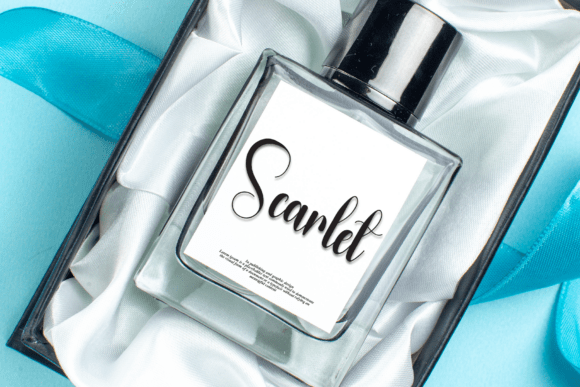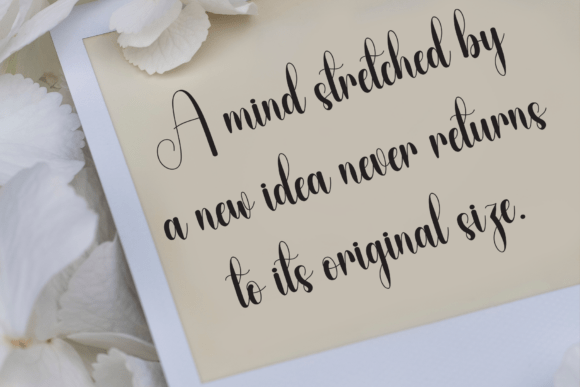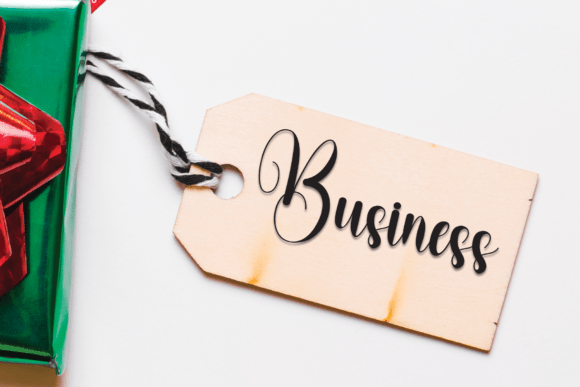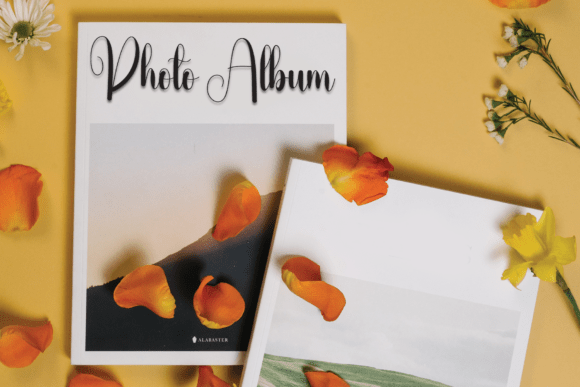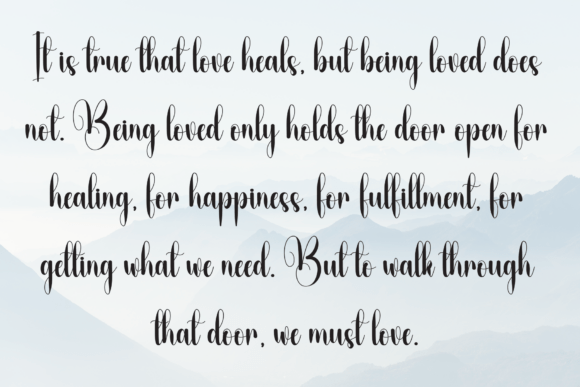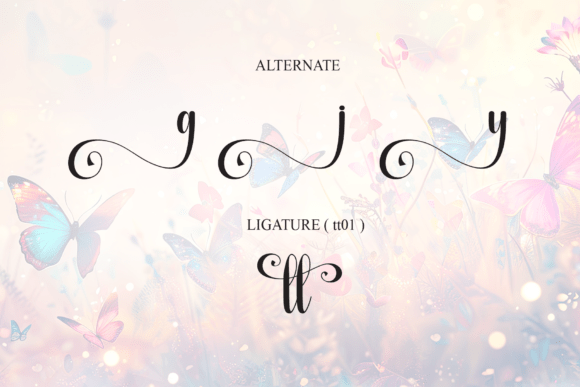
Butterfly Font: Elevate Your Designs with Elegant Modern Calligraphy
Are you searching for a font that adds a touch of romance and sophistication to your designs? Look no further than the Butterfly Font, a stunning modern calligraphy script that is sure to make your projects stand out. With its elegant swashes, smooth loops, and high thick-thin contrast, this beautiful font is perfect for creating statement wordmarks that exude luxury and refinement.
What is Butterfly Font?
Butterfly Font is a romantic modern calligraphy typeface designed to bring a touch of elegance to your designs. Its unique blend of classic calligraphy and modern flair makes it perfect for a wide range of applications, from wedding suites and boutique logos to packaging and social quotes. The font’s smooth loops, elegant swashes, and balanced spacing ensure that it remains highly readable, even at smaller sizes.
Key Features of Butterfly Font
- Elegant Swashes: Add a touch of drama and sophistication to your designs with the font’s beautiful swashes, which can be customized to suit your needs.
- Smooth Loops: The font’s smooth loops create a sense of fluidity and movement, adding to its overall elegance and refinement.
- High Thick-Thin Contrast: The font’s high thick-thin contrast creates a sense of depth and dimensionality, making it perfect for creating statement wordmarks.
- Balanced Spacing: The font’s balanced spacing ensures that it remains highly readable, even at smaller sizes.
- OpenType Alternates & Ligatures: Customize every flourish with the font’s OpenType alternates and ligatures, giving you complete creative control.
- Encoded PUA Character: The font’s encoded PUA character allows you to access it completely without additional design software, making it easy to use and edit.
Butterfly Font is perfect for designers and crafters looking to add a touch of elegance and sophistication to their projects. Whether you’re creating wedding suites, boutique logos, packaging, or social quotes, this beautiful font is sure to impress. Its crisp results in Cricut/Silhouette or print projects make it a versatile choice for a wide range of applications.
Why Choose Butterfly Font?
So why choose Butterfly Font over other modern calligraphy fonts? Here are just a few reasons:
- Unique and Elegant: The font’s unique blend of classic calligraphy and modern flair makes it stand out from other fonts.
- Highly Readable: The font’s balanced spacing and smooth loops ensure that it remains highly readable, even at smaller sizes.
- Customizable: The font’s OpenType alternates and ligatures give you complete creative control, allowing you to customize every flourish.
- Encoded PUA Character: The font’s encoded PUA character makes it easy to use and edit, without requiring additional design software.